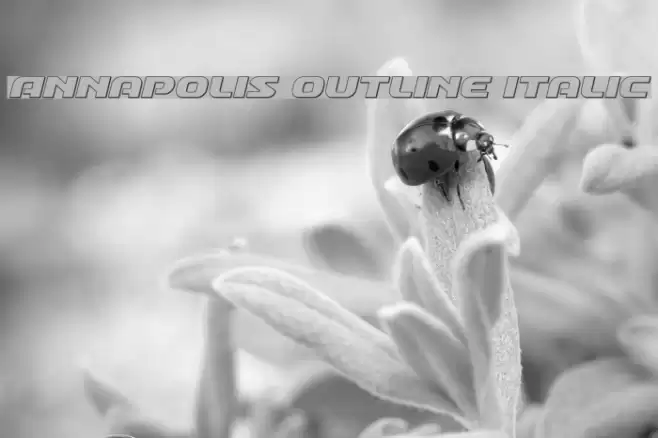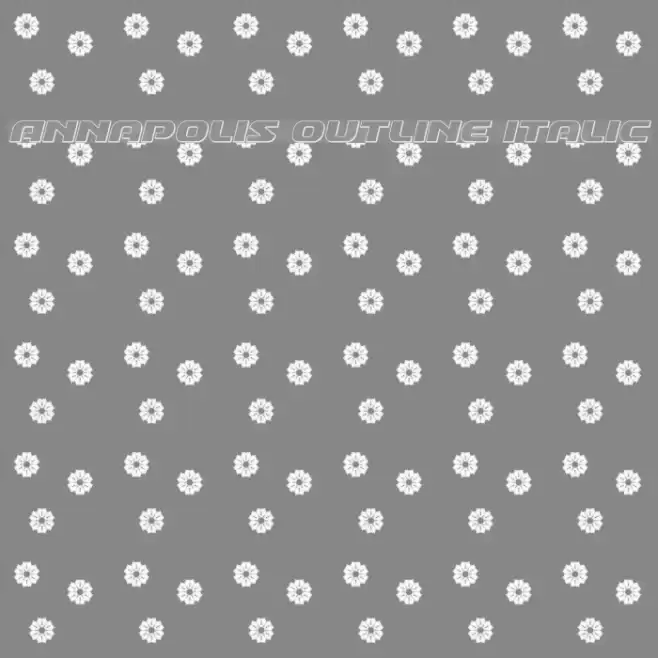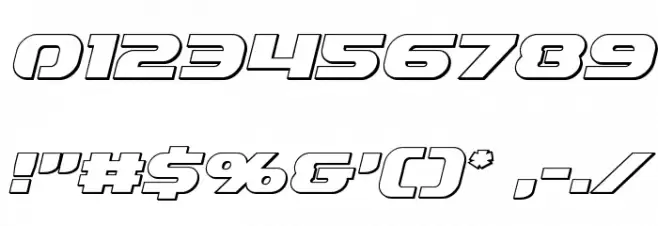
Annapolis Outline Italic Font
Annapolis Outline Italic Description
This font features a bold, outlined style with a modern and futuristic aesthetic. The characters are italicized, giving them a dynamic and forward-leaning appearance. The outlines are consistent and clean, providing a sense of structure and clarity. The uppercase and lowercase letters maintain a uniform width, contributing to a cohesive look. Numbers and special characters are designed with the same outlined and italicized style, ensuring versatility across different uses. The font's geometric shapes and sharp angles make it suitable for projects that require a contemporary and edgy feel.
A bold, italicized outline font with a modern and futuristic style from Sci-fi fonts.